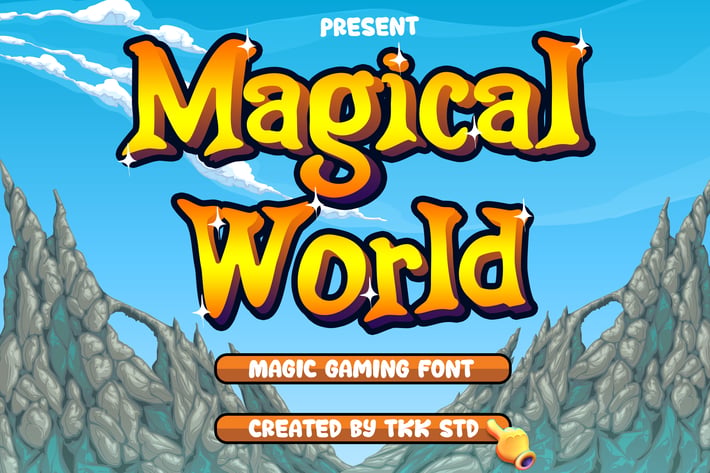
Magical World - Fancy font
Magical World - Fancy Font
Magical World is a fantasy-themed, long-tail keyword-optimized font designed to bring your mystical titles to life. With its rounded letterforms, bold presence, and playful rhythm, this typeface is both expressive and readable, perfect for fantasy interfaces, RPG headlines, and magical children's books. The slightly bouncy baseline and whimsical silhouette enhance its fairy-tale vibe, creating a visual charm ideal for games, merchandise, and interactive storytelling.
Whether you're designing the title screen for a dungeon quest, creating storybook branding, or crafting a wizard-themed app UI, Magical World pulls viewers into a universe of wonder. Its distinctive style captures fantasy aesthetics and delivers visual clarity, making it engaging for kids and nostalgic for adults alike. Use it to enchant game players, young readers, or branding clients with a touch of mystical fun.
Key Features :
Whimsical & Playful: Tailored for fantasy, games, and magical narratives
Rounded Display Style: Balanced boldness and softness for easy legibility
Vibrant Character: Bouncy, inviting, and storytelling-ready
Versatile Usability: Great for covers, game UIs, editorial titles, and branding projects